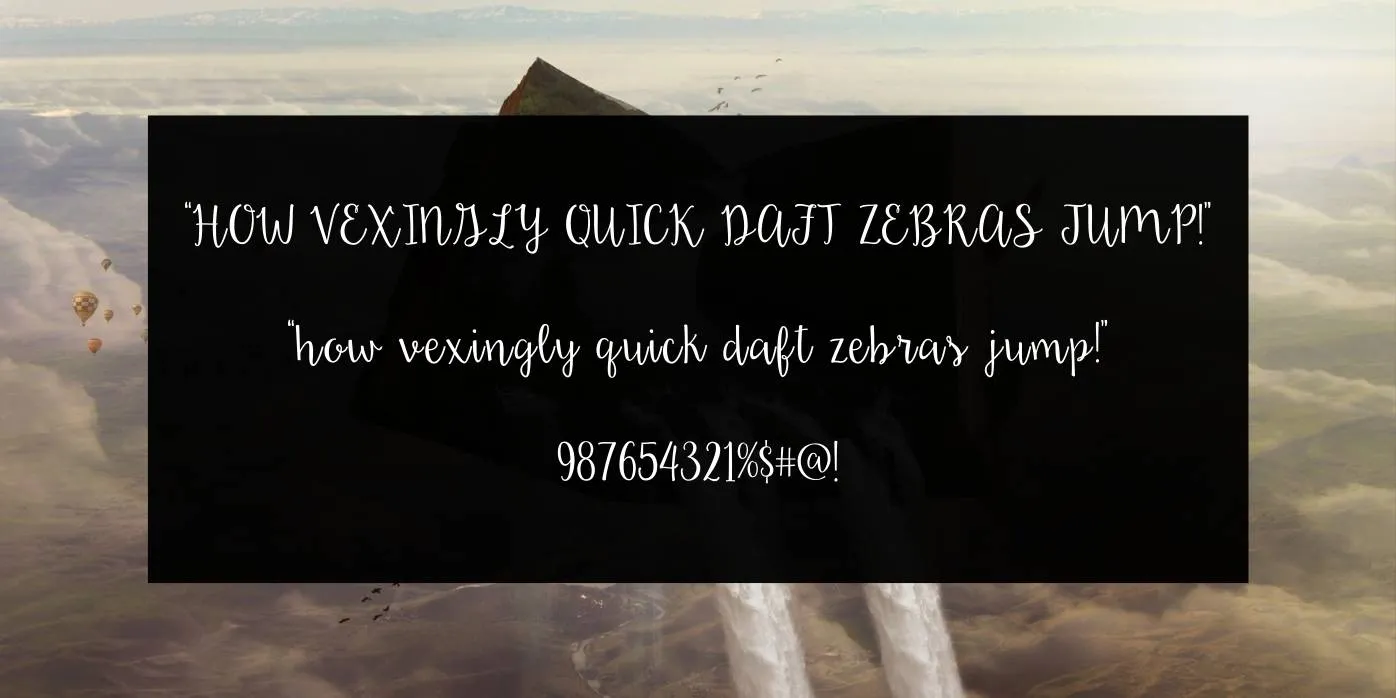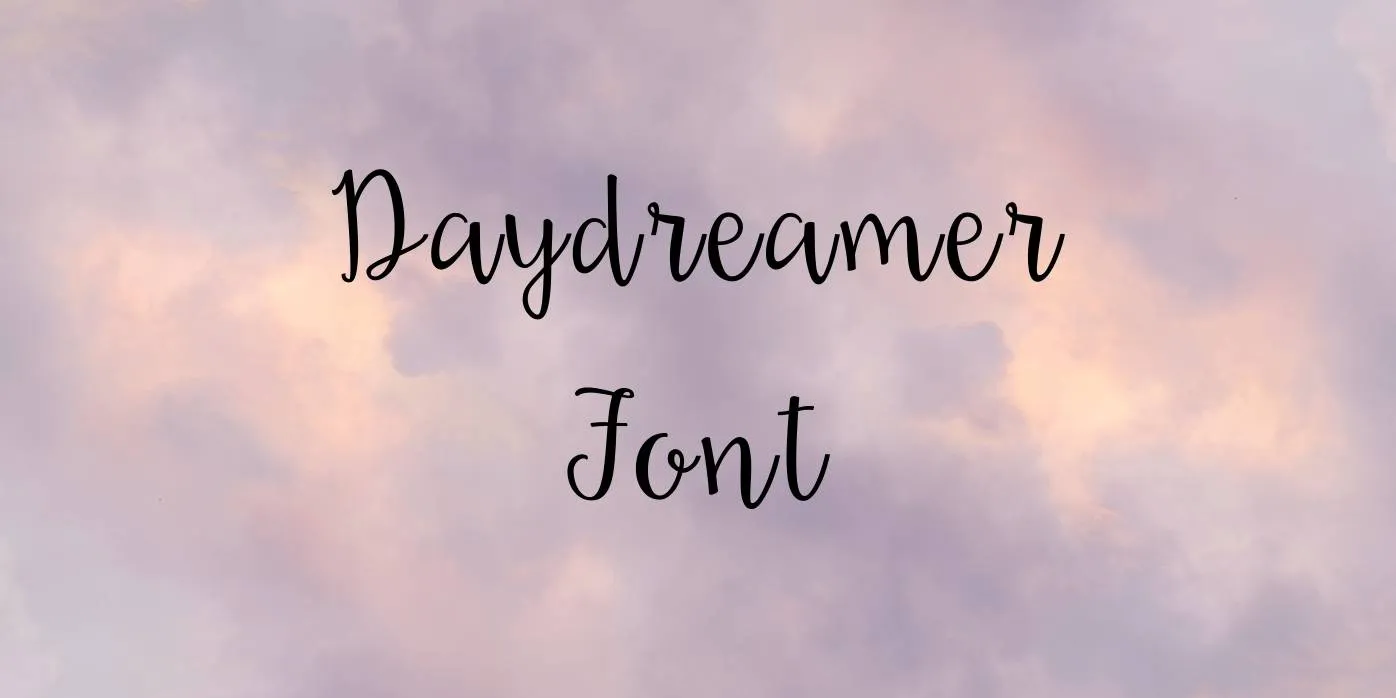
Daydreamer Font
Daydreamer Font belongs to the handwritten texture family. This stunning typeface was designed by a well-known typographic designer known as the name of Emily Spadoni. All rights are reserved by Emily Spadoni. It has unique types of characters, numbers, small letters, capital letters, special characters, and punctuation.
This font also provides the features of the online generator tool which can be used for making copy-paste easy to use and makes your work more efficient. Its look is very fancy and stylish which can be used to make your projects so much good with a playful vibe. It has 190 characters and 1000 units per Em. It is more suitable for making small text and projects.